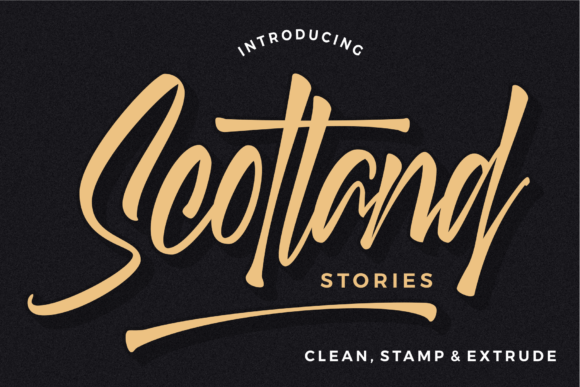
Step into the enchanting realm of Scotland Stories, a spirited script font that dances across the page with captivating flair. Designed by the talented RedyStudio, this font is not just a collection of letters; it's an expression of unbridled creativity and boundless charm.
Scotland Stories is a symphony of bold strokes and graceful curves, a font that commands attention without overpowering your designs. Its sturdy structure ensures that every character retains its integrity, even at smaller sizes, while its playful personality adds a touch of whimsy and magic to any project.
Whether you're crafting invitations that exude elegance, designing logos that demand attention, or creating social media posts that captivate your audience, Scotland Stories is your perfect partner. Its versatility knows no bounds, adapting seamlessly to a wide range of creative endeavors.
Immerse yourself in the rich storytelling potential of Scotland Stories. Let its spirited energy breathe life into your words, transforming them into unforgettable expressions that resonate with your audience. This font is not just a design tool; it's an invitation to embark on a creative journey where passion and imagination collide.
Don't settle for ordinary fonts that blend into the background. Embrace the captivating allure of Scotland Stories and watch your designs come alive with a unique charm that captivates and inspires. Join countless creatives who have discovered the transformative power of this remarkable font and elevate your work to new heights of visual appeal.